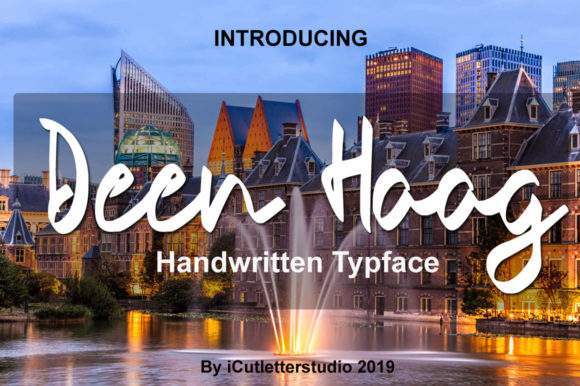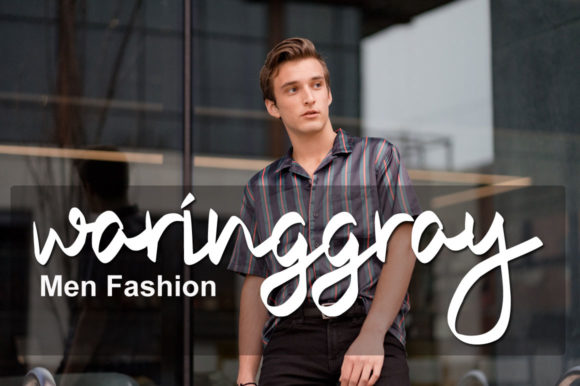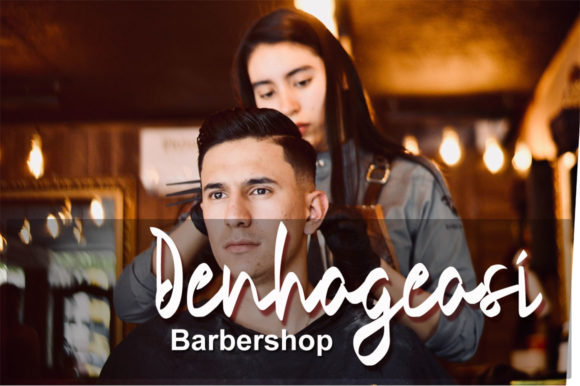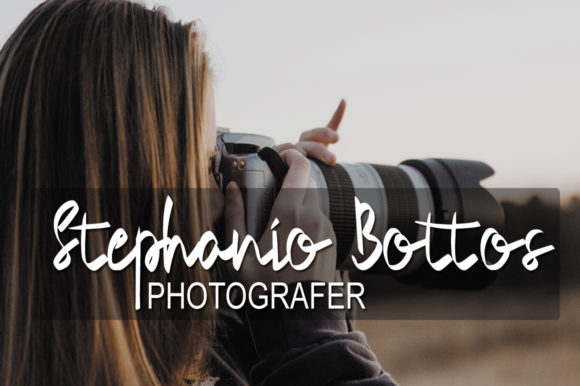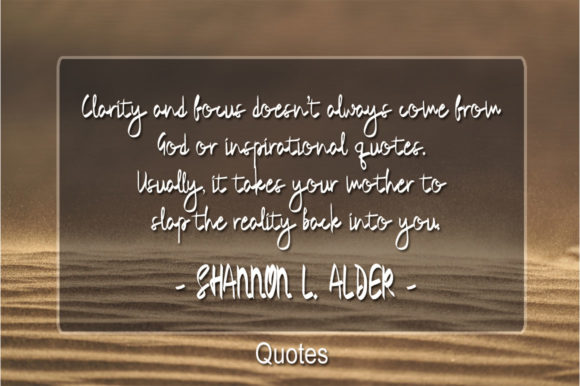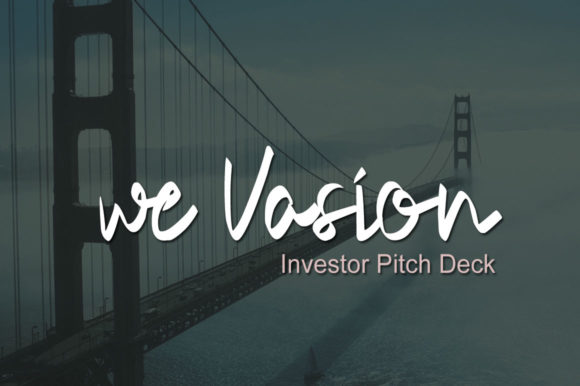
Deen Haag Font
About Deen Haag Font
The Deen Haag is a modern hand-lettering font. It has an elegant, yet striking look which makes it perfect for a wide range of designs.